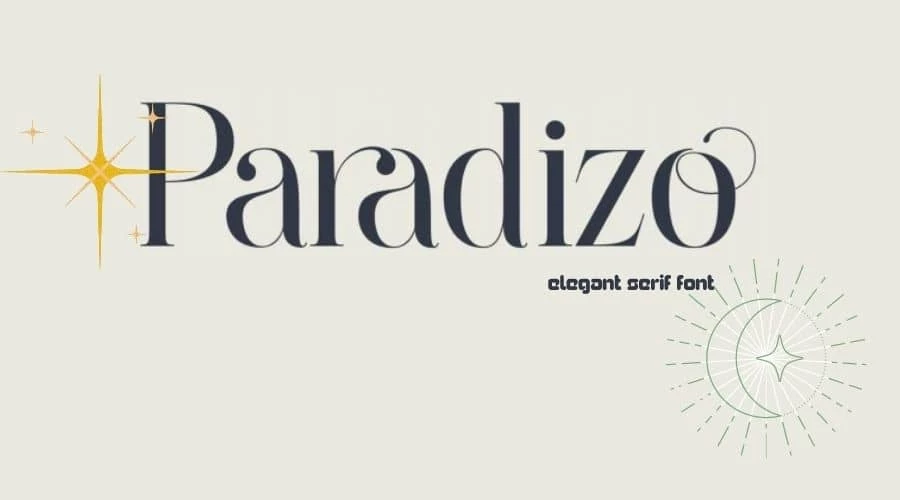
Are you looking for an elegant serif font then, Paradizo Font is the ideal choice for you. Paradizo is an elegant serif typeface designed by Surplus Type Co. It comes with two versions one is regular and the other is oblique. With a large number of alternates & ligatures, Paradizo is one of the best choices for creating a unique luxurious design.
Paradizo font is compatible with every type of design work there is. You can use this font for web design purposes. I have seen various websites use this font. Like headings, titles, and sometimes subtitles. Paradizo is perfect for awesome display, labeling, clothing, movie screens, posters, movie titles, gigs, album covers, logos, and much more. It’s also could be good for both fun and semi-formal text.
Ans: Paradizo is an elegant serif typeface designed by Surplus Type Co.